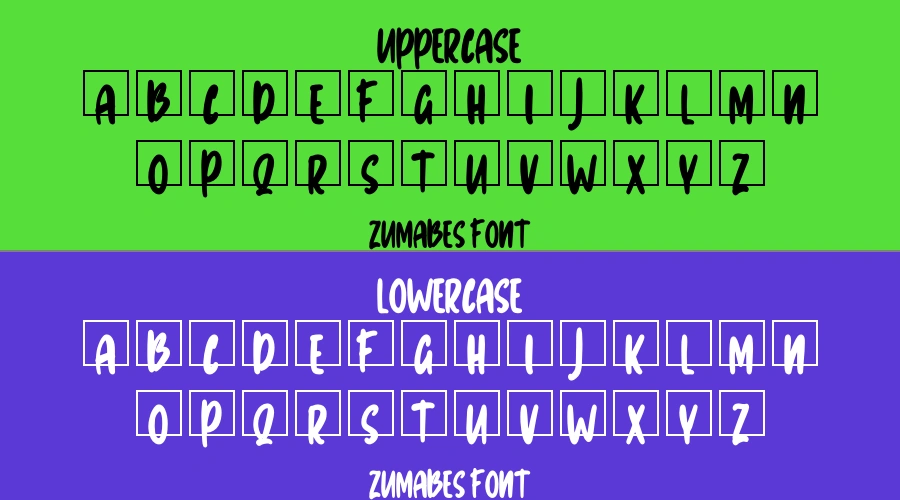
About Zumabes Font
Designed with precision, Zumabes Font merges modular forms with memorable presence in every character. This versatility makes it particularly effective for financial statements, where sophistication and technical precision directly impact communication quality. Each letterform demonstrates meticulous craftsmanship.
Technical excellence shines through elements like balanced proportions and display figures, enhancing typographic versatility. In footnotes settings, Zumabes Font proves its worth through superior reliability. The thoughtful execution of counter shape and technical innovation ensures professional results.